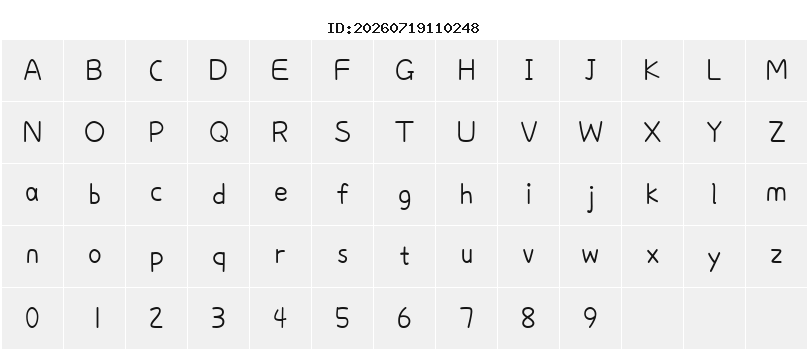
YEFONTGuoJiangTi Preview
• Font Name: YEFONTGuoJiangTi
• Font ID: 1.000;YEFO;YEFONTGuoJiangTi-Regular
• Full Font Name: 也字工廠果醬體 標準
• PostScript Name: YEFONTGuoJiangTi-Regular
• Character Count: 7142
• Manufacturer: 也字工厂
About YEFONTGuoJiangTi.TTF
YEFONTGuoJiangTi.TTF is a modern, elegant sans-serif font designed for ultimate readability and visual harmony. Perfect for branding, headlines, web design, and print materials.